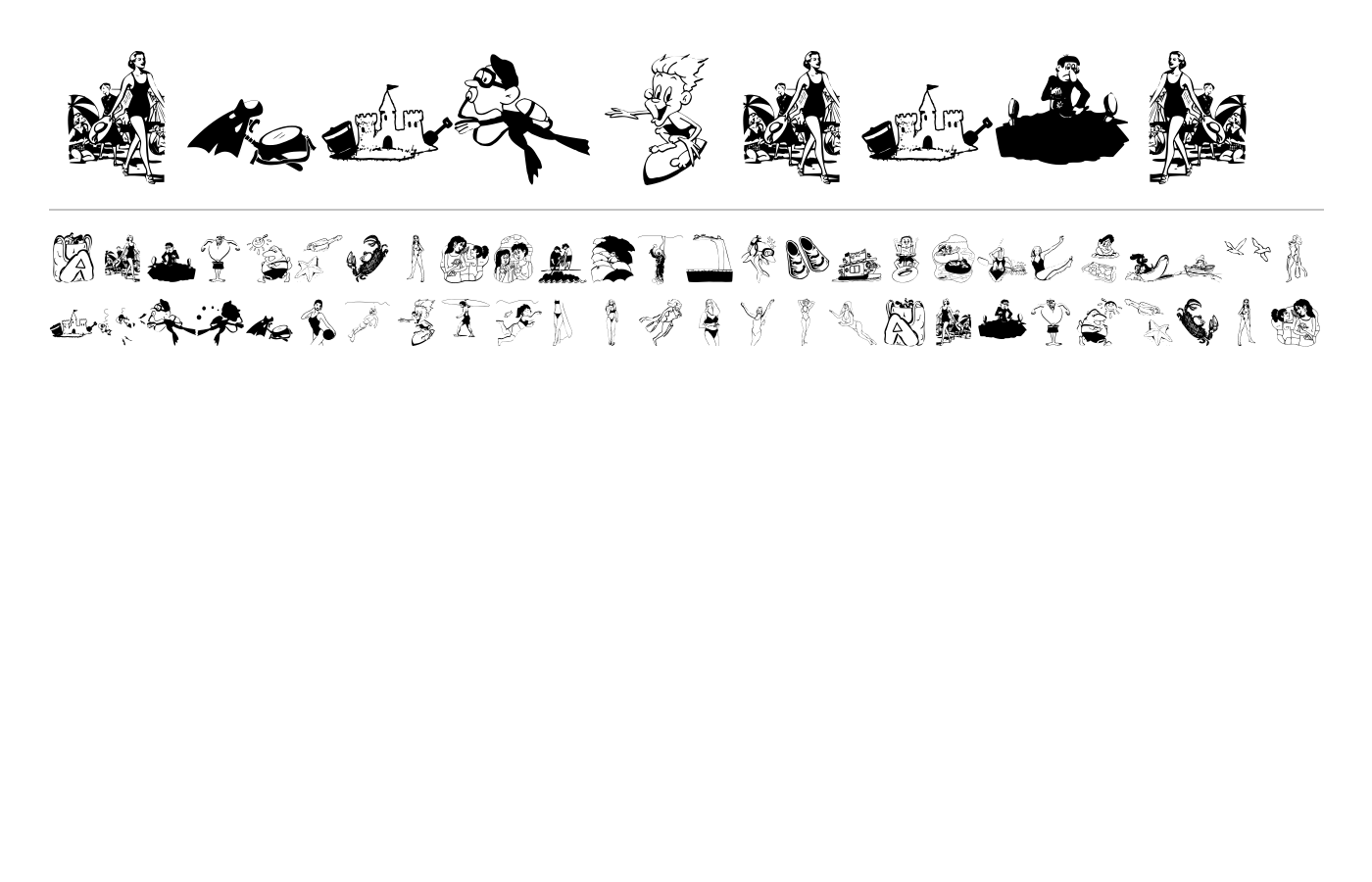
BeachBats is a playful dingbat font featuring detailed black-and-white illustrations centered around beach and summer themes, including people, sea creatures, and beach activities. Its intricate, hand-drawn style lends a whimsical and nostalgic feel perfect for fun, casual design projects like party invitations, surf shop branding, or summer event promotion. This font works best in decorative contexts where expressive imagery adds personality and charm.
BeachBats Font
About BeachBats Font